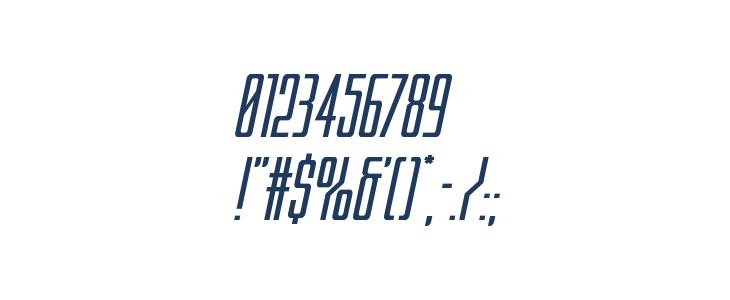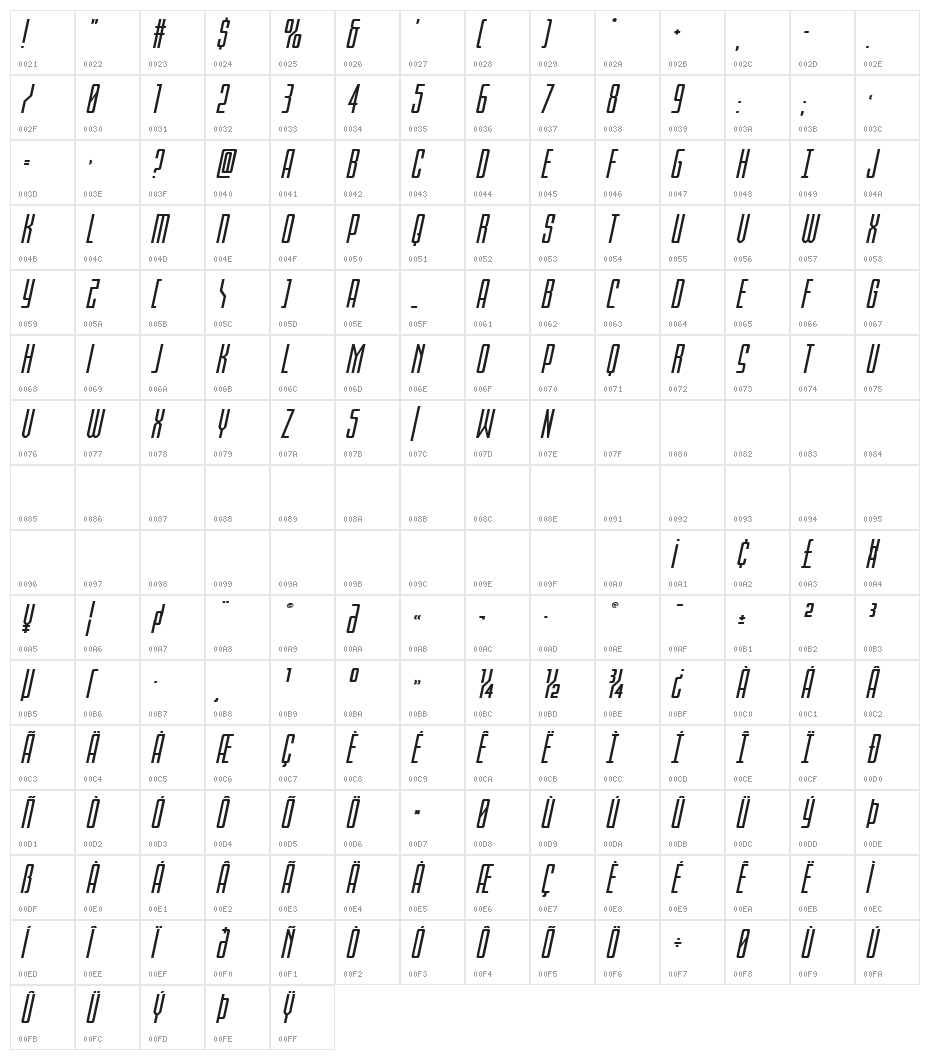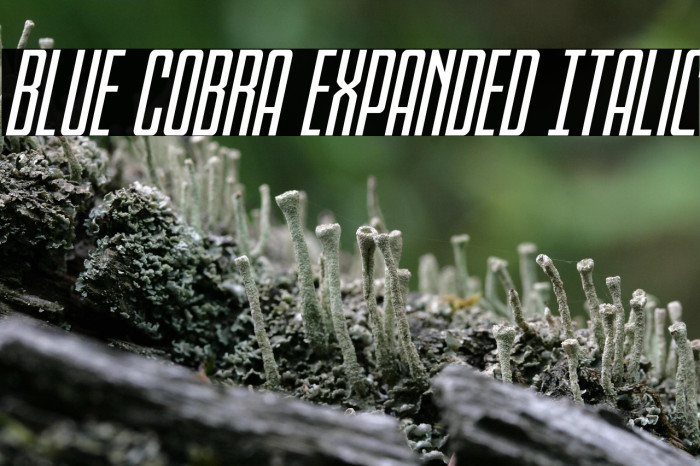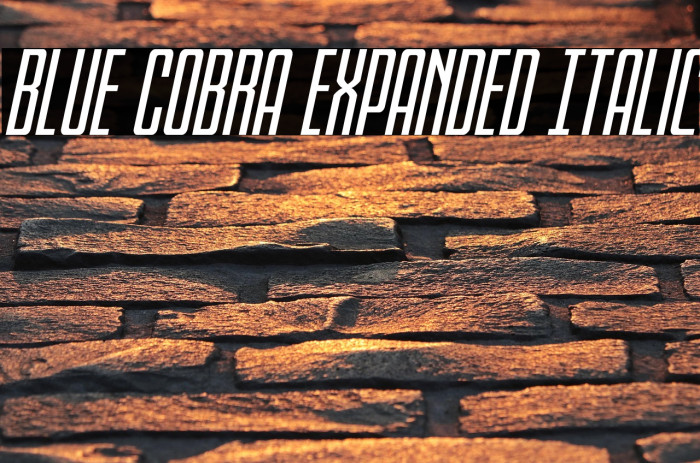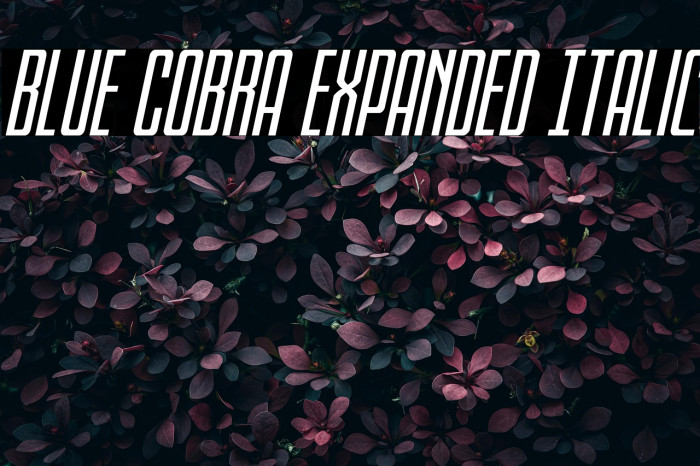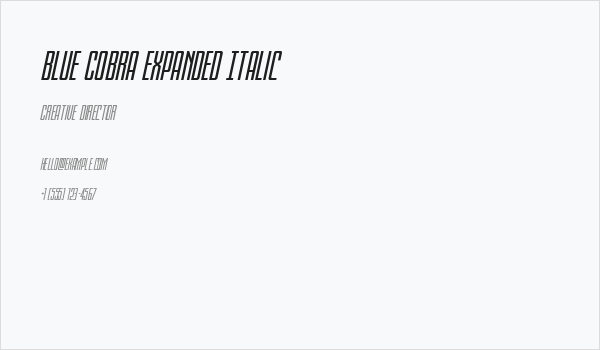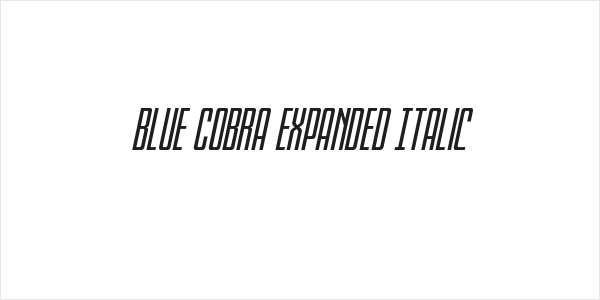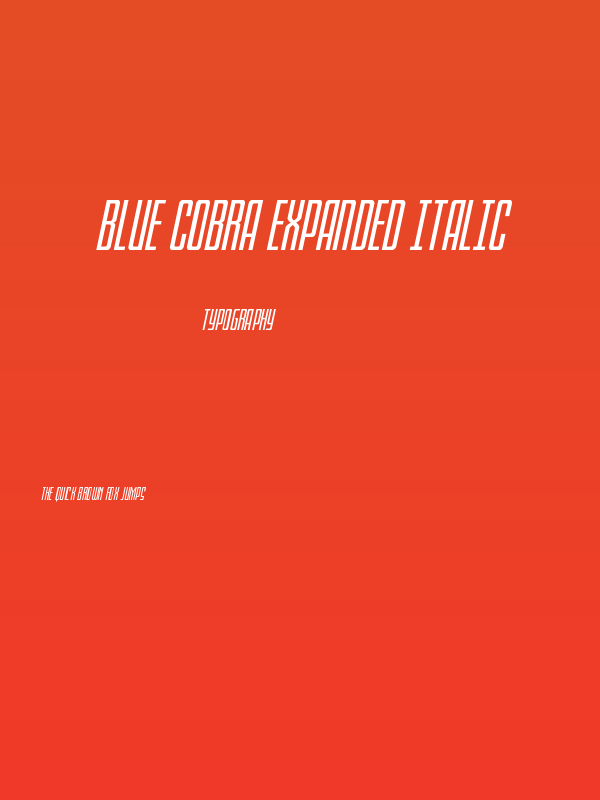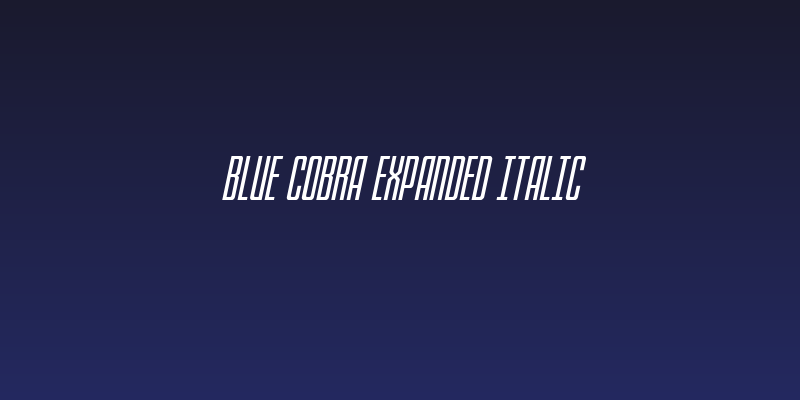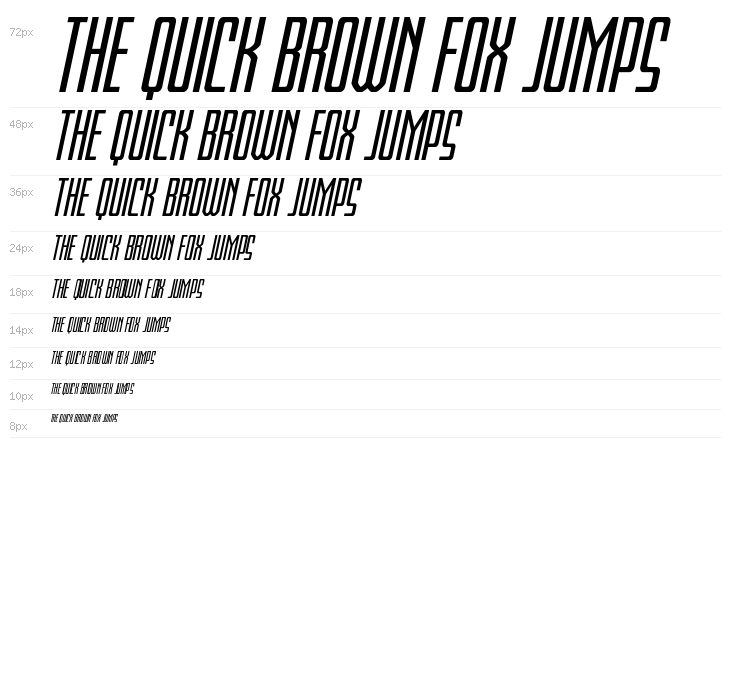
Blue Cobra Expanded Italic Font
Blue Cobra Expanded Italic Description
This font features a dynamic and modern design with elongated, narrow characters that are slightly slanted, giving it an italicized appearance. The strokes are consistent in width, contributing to a sleek and streamlined look. The uppercase and lowercase letters maintain a uniform height, enhancing readability while retaining a distinctive style. The numerals and special characters are designed to match the overall aesthetic, with a focus on geometric shapes and clean lines. This font's expanded width adds a sense of openness, making it suitable for impactful headlines and titles.
| Proposed Projects | Ideal for branding, advertising, sports team logos, and dynamic headlines. |